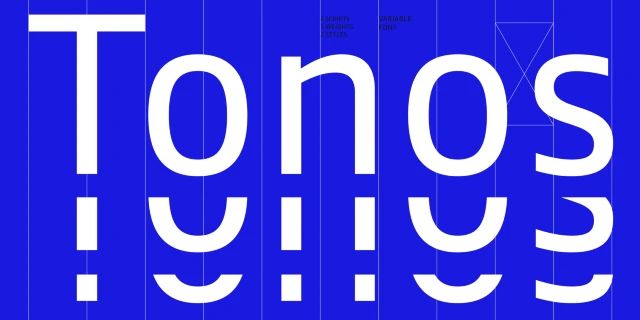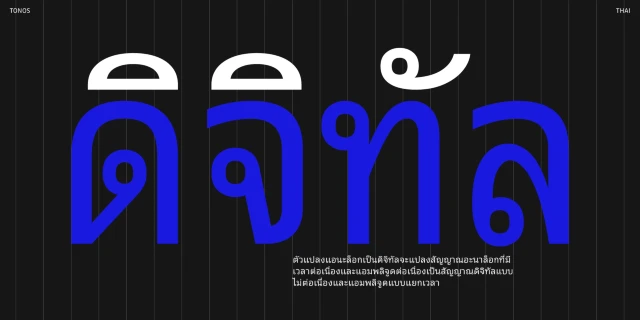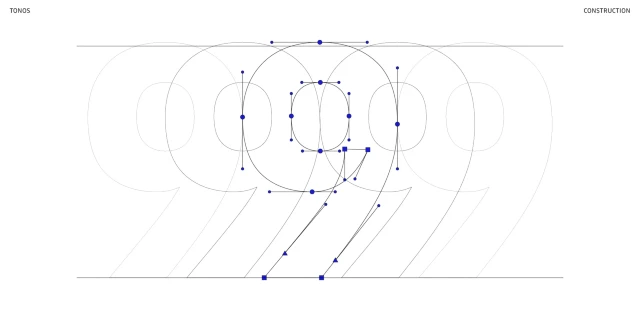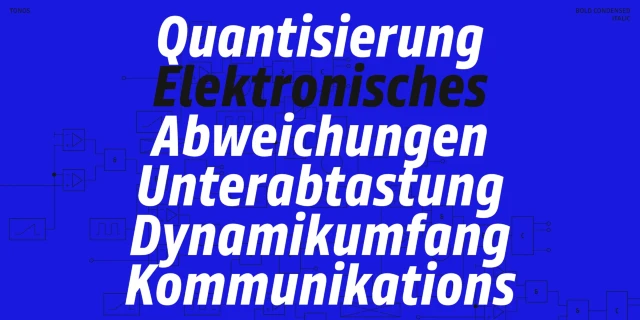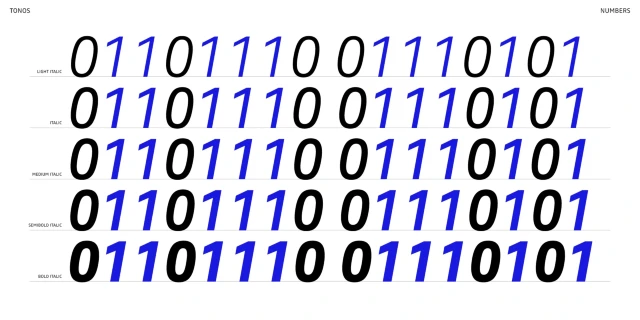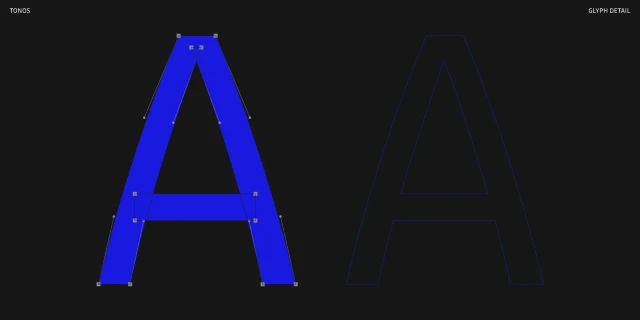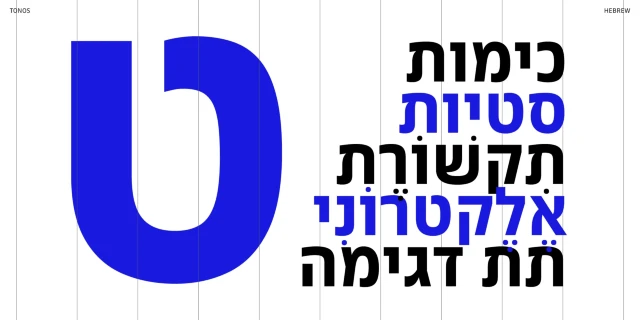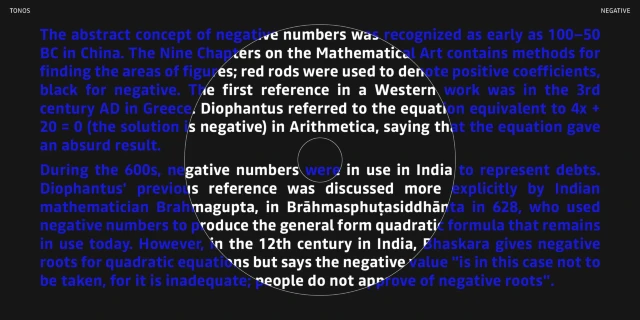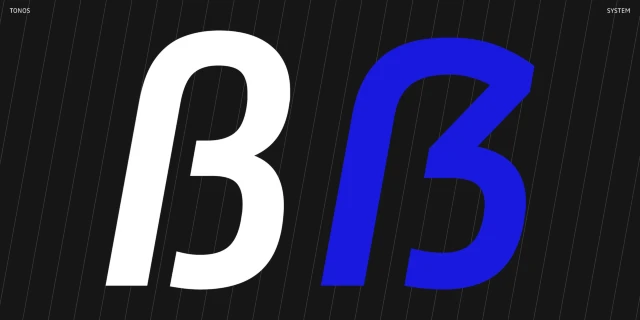
Tonos Fonts
Tonos is a sans serif font family designed for UI and HMI contexts, supporting Arabic, Cyrillic, Greek, Hebrew, Latin, and Thai. Its calligraphic heritage gives it a warm, humanistic quality carried across all scripts for harmony and legibility. Available in weights from Light to Bold with matching italics, two widths, and monospaced styles, Tonos also comes as a variable font with weight and width axes, offering versatility for functional yet engaging interface typography.
Features
OpenType Features
- Common Ligatures
- Fractions
- Lining Numerals
- Ordinal Numerals
- Stylistic Alternates
- Stylistic Sets
- Superscript
- Tabular Numerals